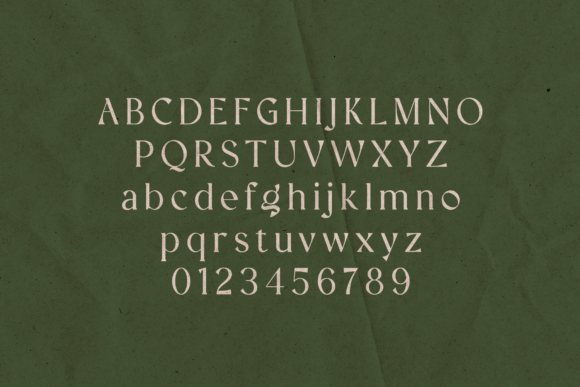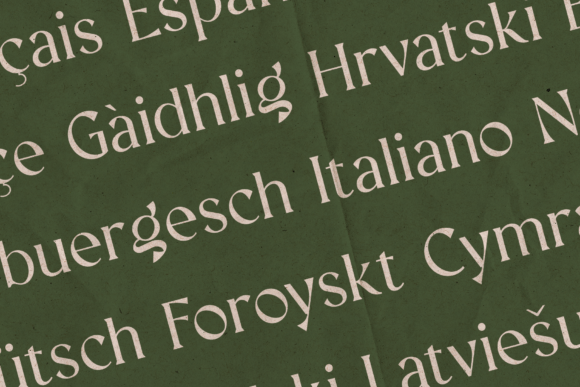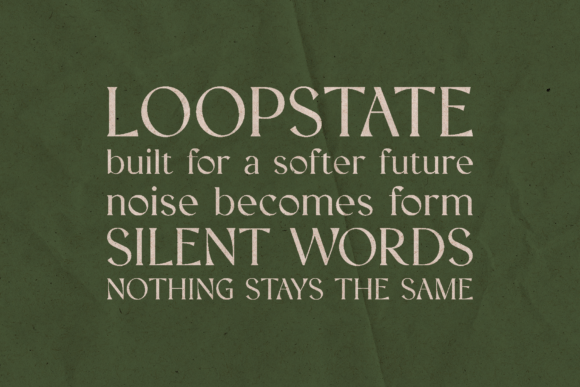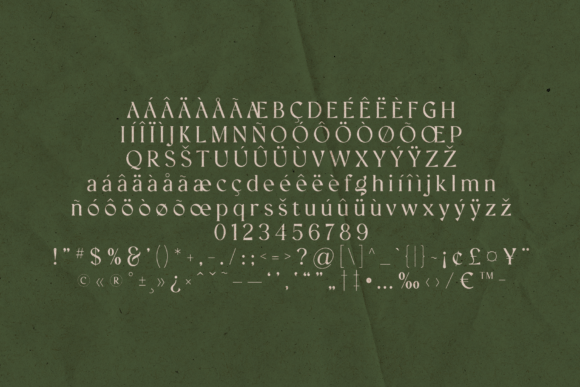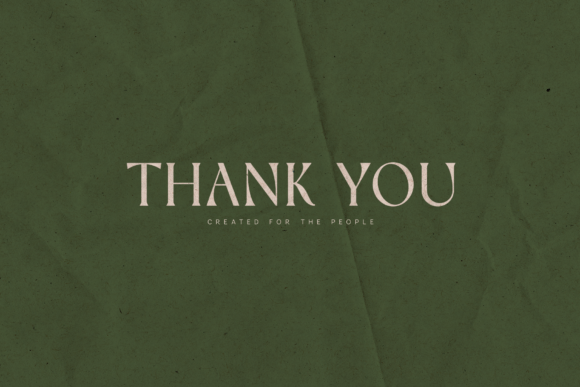
Introduction to Creators Type Font
Creators Type is an organic editorial serif font crafted for designers, writers, and creative studios who value authenticity and expression.
With softly irregular details, classic serif foundations, and a warm, handcrafted feel, this typeface brings personality and depth to modern typography Designed for branding, editorial layouts, book covers, magazines, posters, and creative publishing, Creators Type balances timeless serif structure with subtle organic character.
Key Features of Creators Type Font